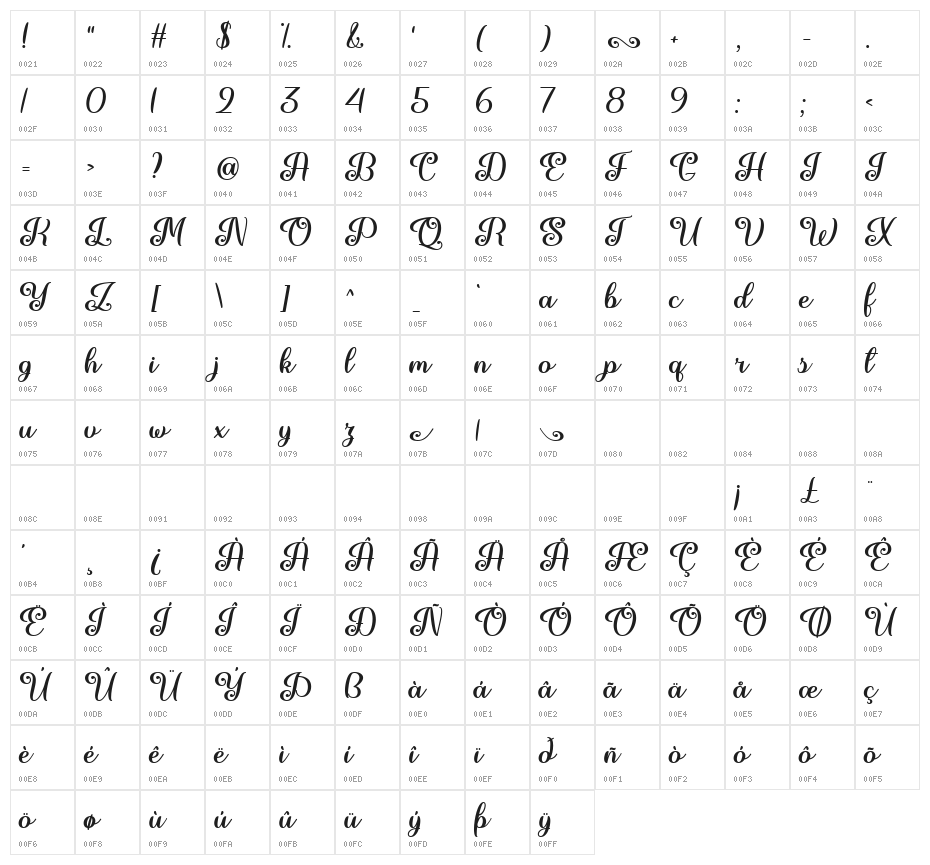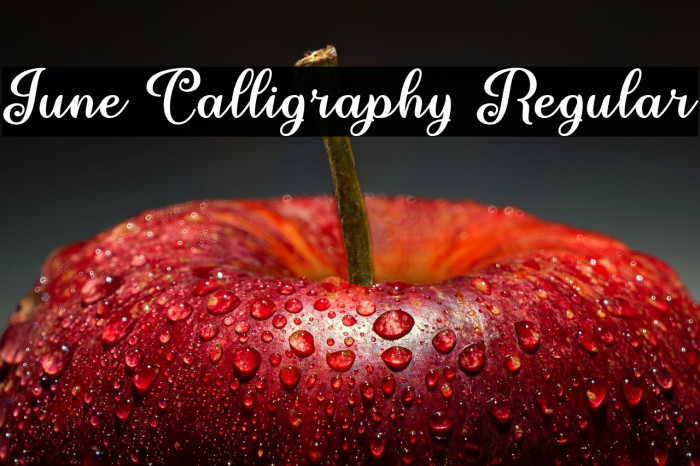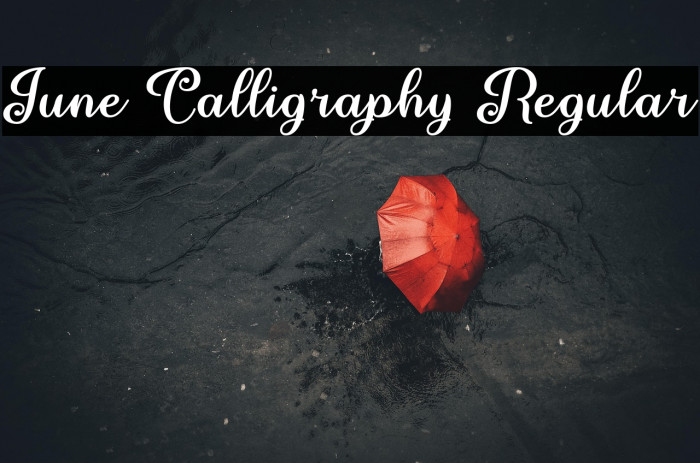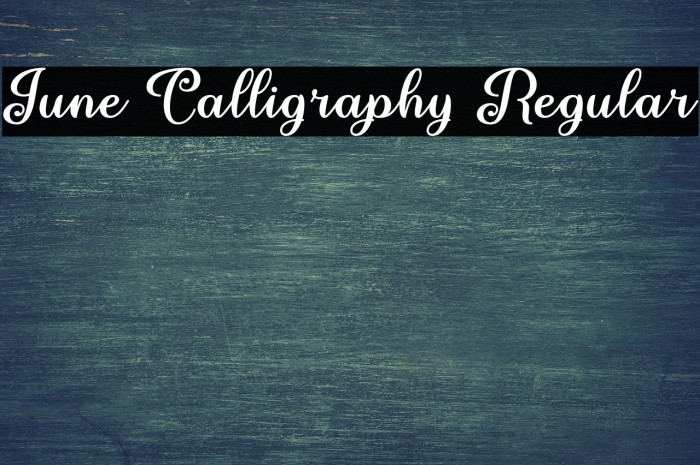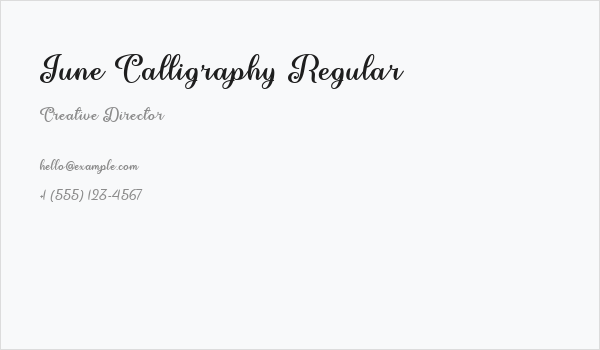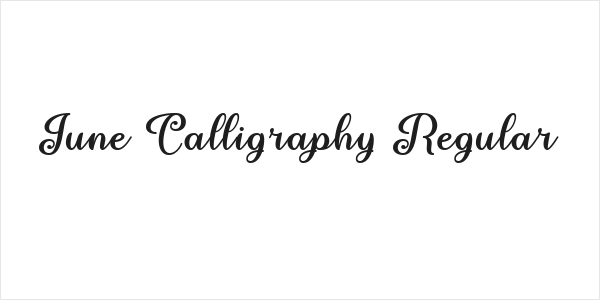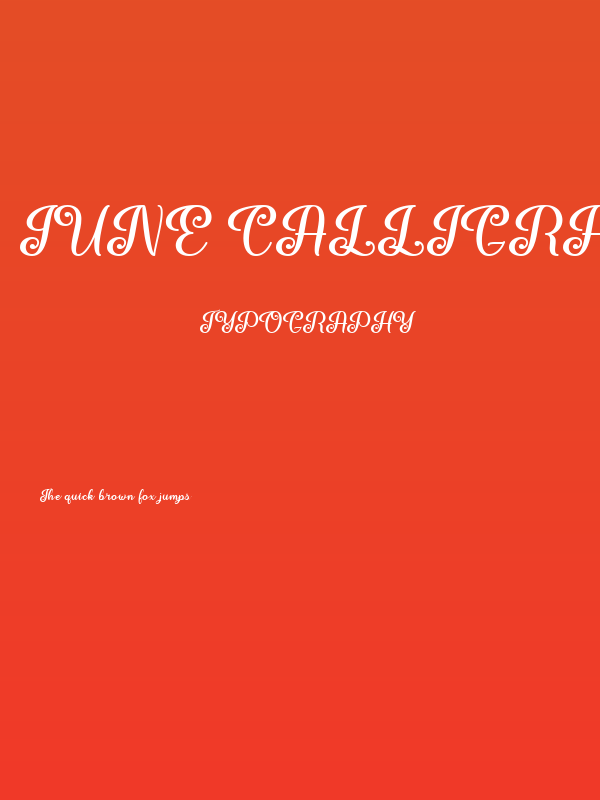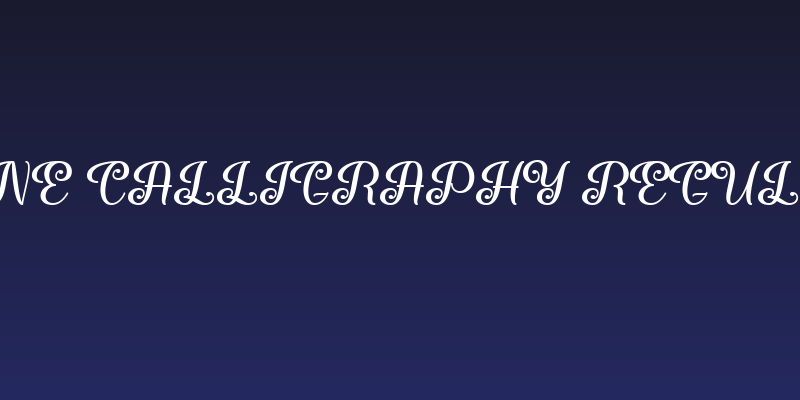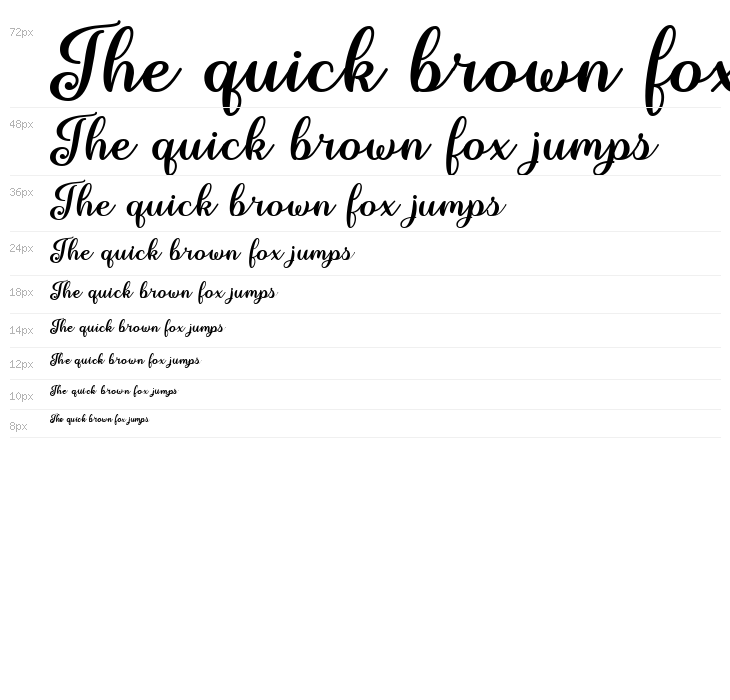
June Calligraphy Regular Font
June Calligraphy Regular Description
This elegant calligraphy font features a flowing, cursive style with intricate loops and swirls, giving it a sophisticated and artistic appearance. The uppercase letters are adorned with decorative flourishes, while the lowercase letters maintain a smooth, connected script that enhances readability. The numerals and special characters are crafted with the same attention to detail, ensuring a cohesive look across all text elements. This font exudes a sense of grace and refinement, making it ideal for projects that require a touch of elegance and class.
| Use Case | Headlines, Invitations, Logos |
| Proposed Projects | Ideal for wedding invitations, greeting cards, elegant branding, and decorative posters. |